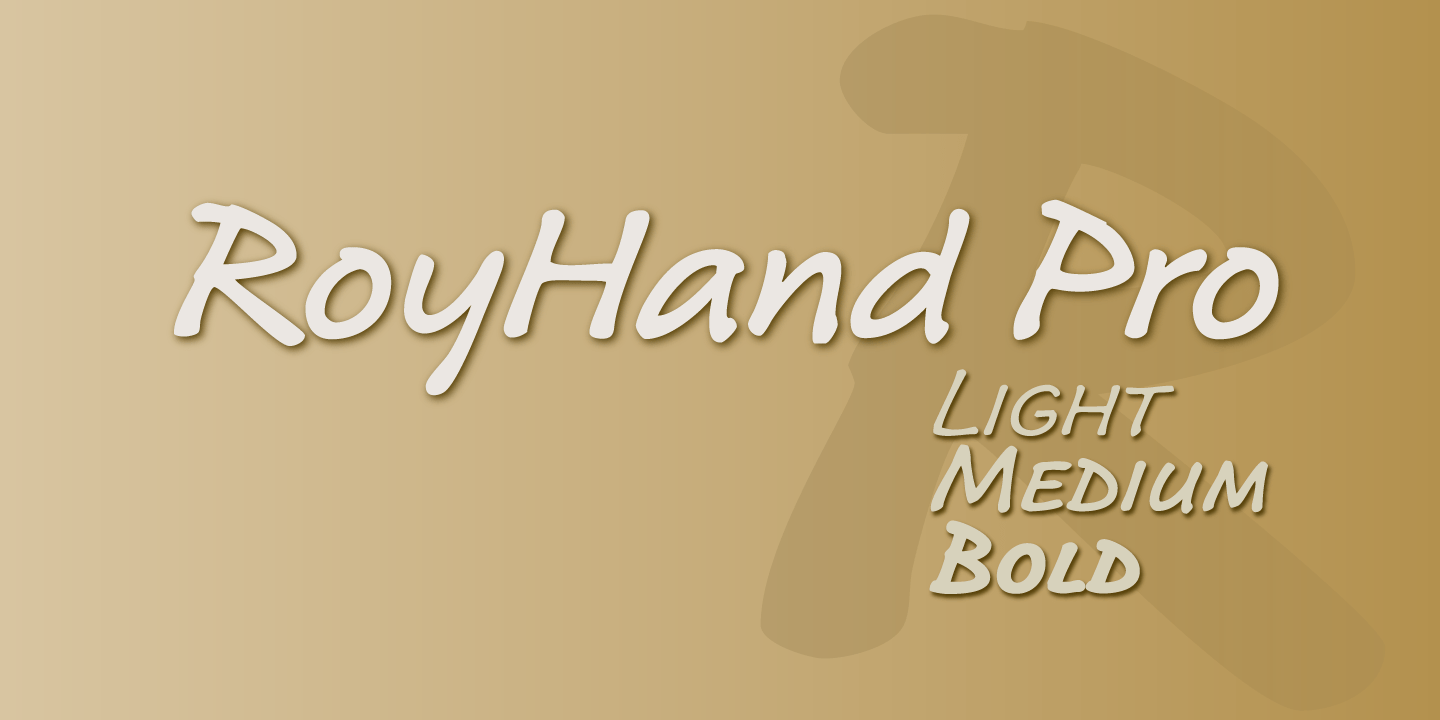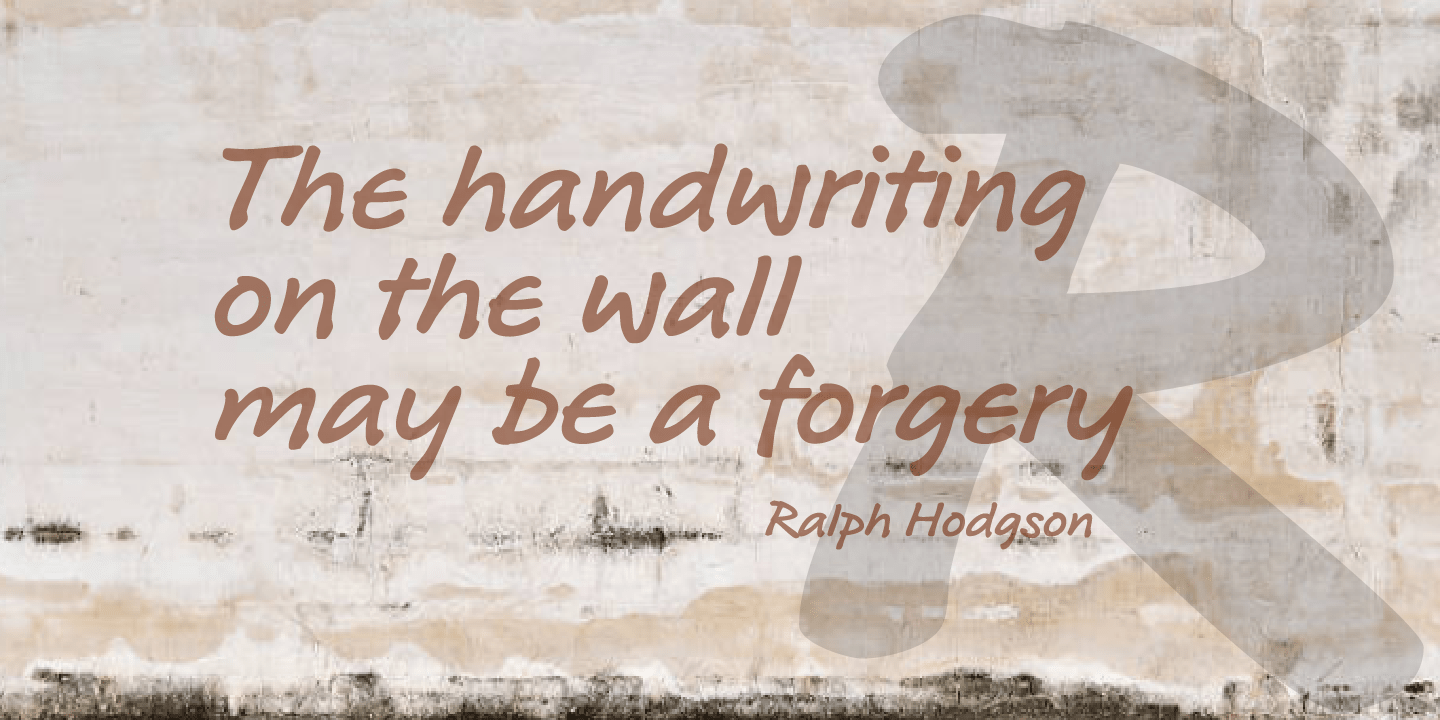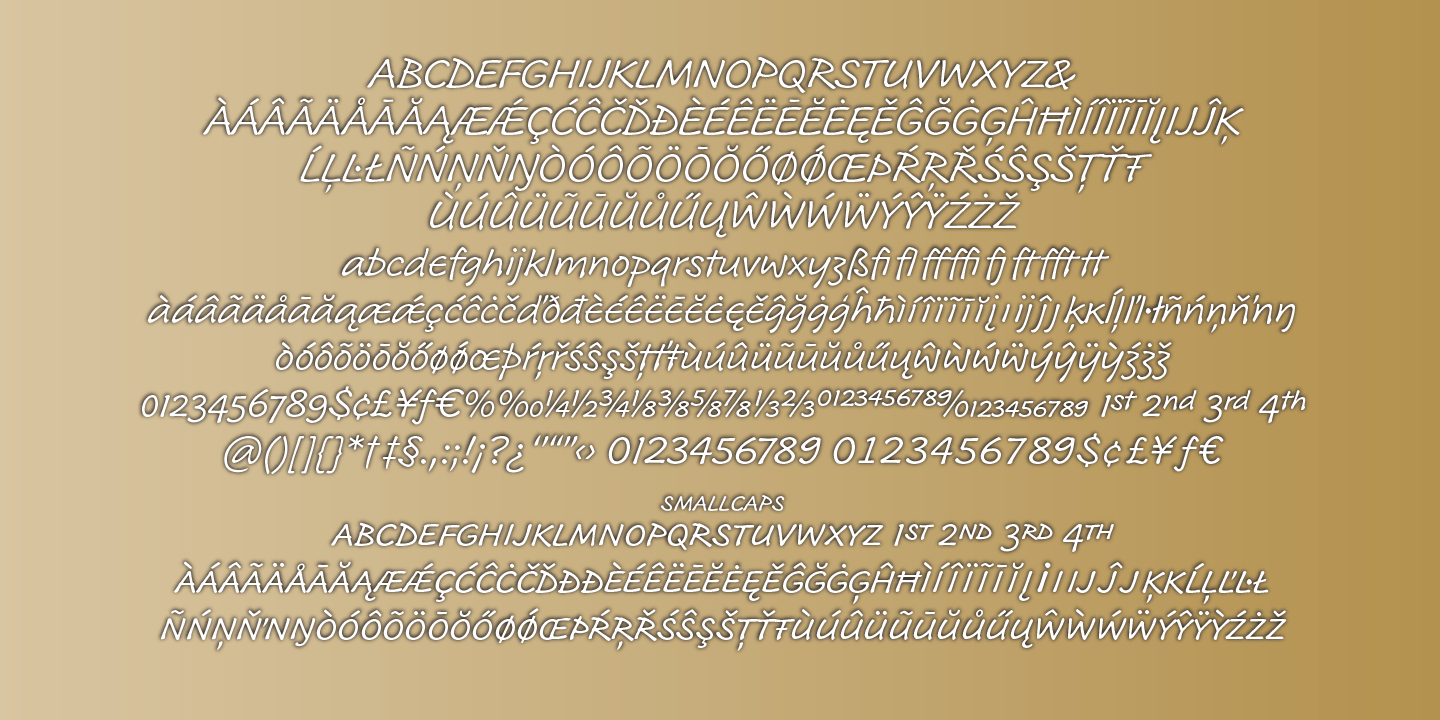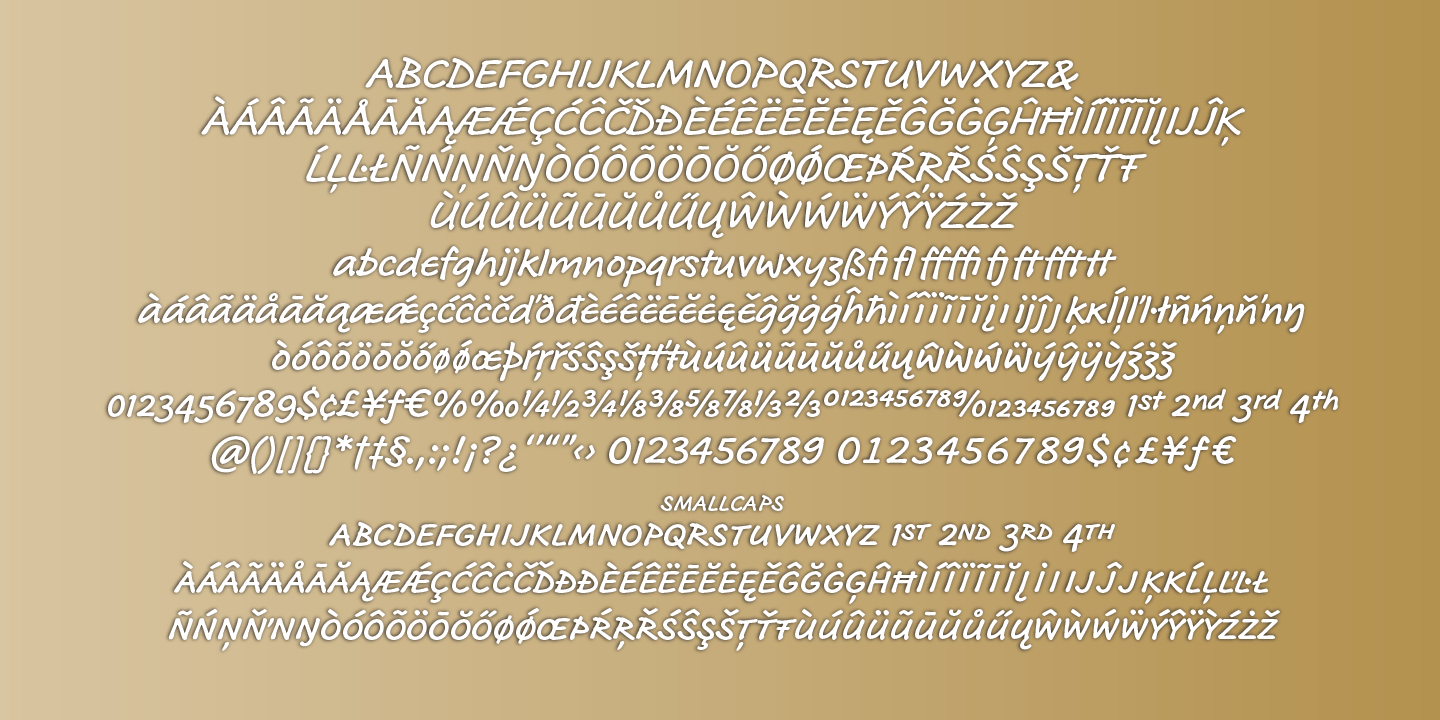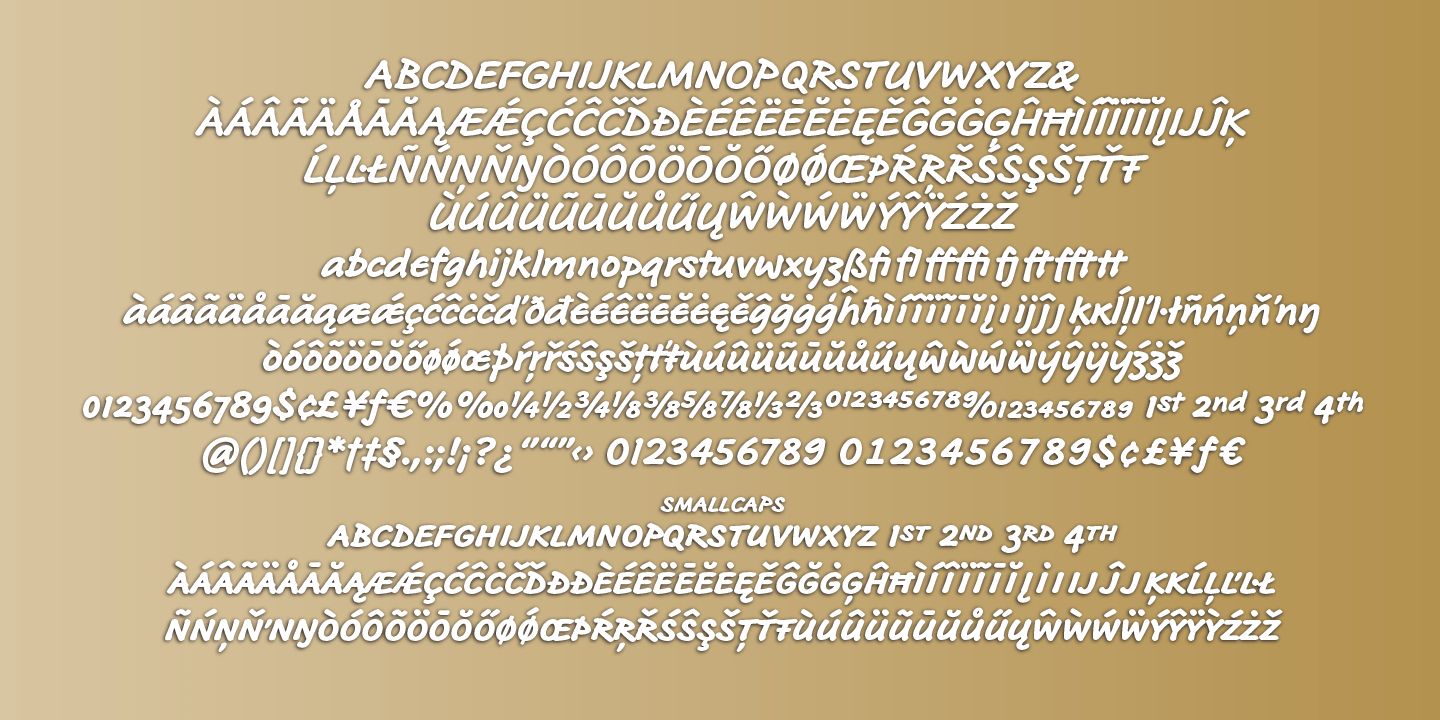
RoyHand Pro
Font Family by BluHead Studio
RoyHand Pro was created by the late Roy Preston. RoyHand, as the name would suggest, is based upon the handwriting of Roy himself. It is casual and friendly, with a gentle italic angle. The terminal ends bulge slightly, a telltale sign of the tool Roy used to lay down the artwork. The family has three weights, Light, Medium and Bold. Roy wanted to make sure the typeface was suitable for many everyday uses, so each weight supports OpenType features for smallcaps, oldstyle, proportional and tabular lining figures, ligatures, superiors and inferiors, unlimited fractions, and ordinals. Don't let the easy-going character of RoyHand Pro fool you; it's designed to be a workhorse. The extended character set supports many western European languages.